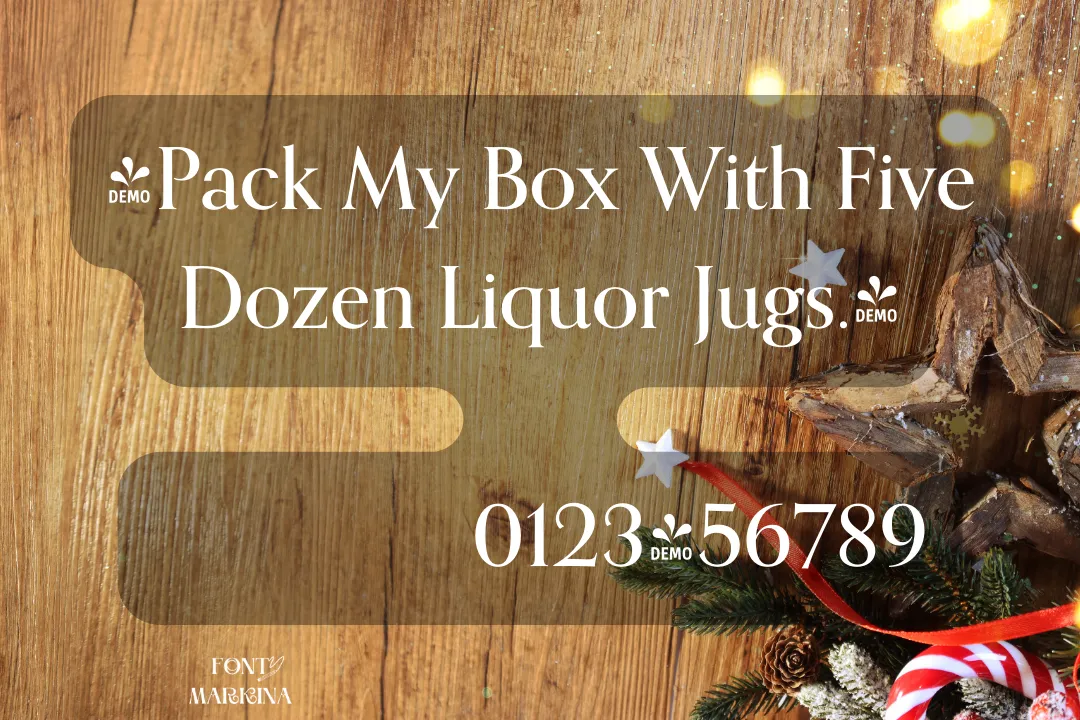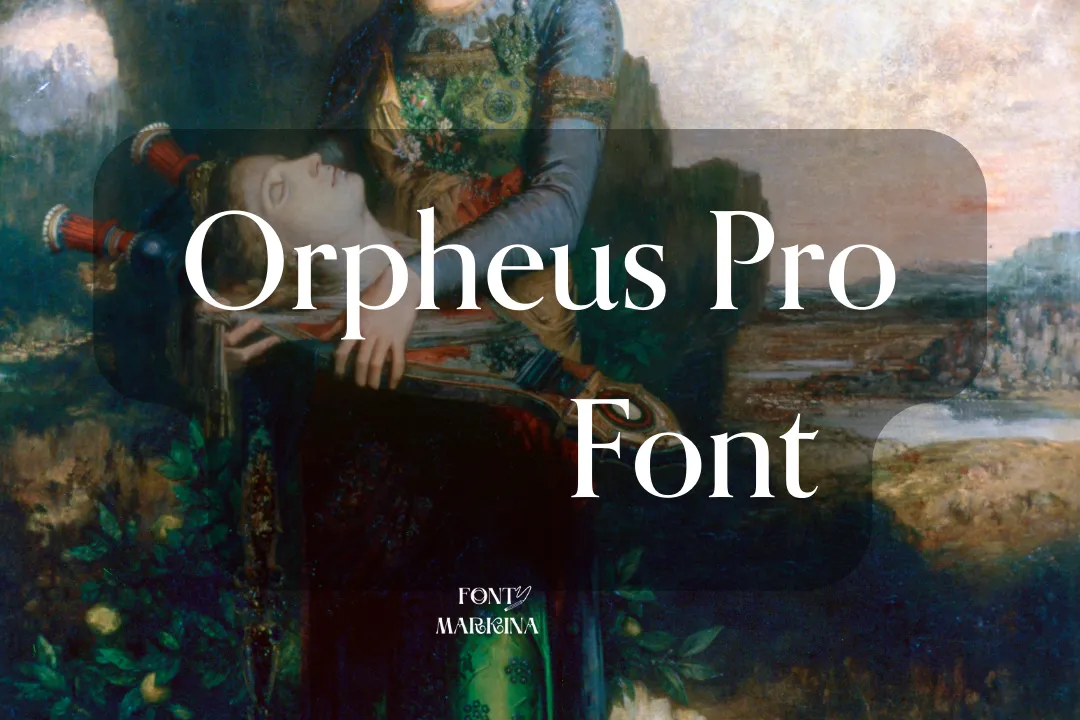
Introducing to you a very traditional texture that goes under the name Orpheus Pro Font. This texture lies in the category of the serif family of fonts. This typography has a lot of features that make it thoroughly distinct from others.
A similar typeface to this family is Bauer Bodoni font which is very attractive. This texture is effective for Canva Program. The bold and italic style of Orpheus Pro Font and many characters with sports of different languages has very impressive. The generator tool of this texture is well suited for a vast variety of amazing graphic designs.
Who Can Design Orpheus Pro Font
Behind the creation of this texture are two brilliant designers Kevin King and Patrick Griffin. They released it through Canada Type.
Uses of Orpheus Pro Font
The use of Orpheus Pro Font is very familiar because of its sharp features. In a vast variety of large projects, such as vehicle wraps the use of this font is familiar. It is very beneficial for professional developers. You can change the designs of your website by using this attractive family.
For billboards and signboards, this typography is usually used. It is perfect for Thumbnails of different interesting videos and video channels. Also, you can make logos of games and development of games with the help of this stylish typeface.
Orpheus Pro Font View
| Designer | Kevin King and Patrick Griffin |
| Foundry | Canada Type |
| Style | Serif |
Can I use Orpheus Pro typeface for logos?
Yes, sure it is effective for different types of logo designs. Even all higher brands and organizations use this texture for their logos.